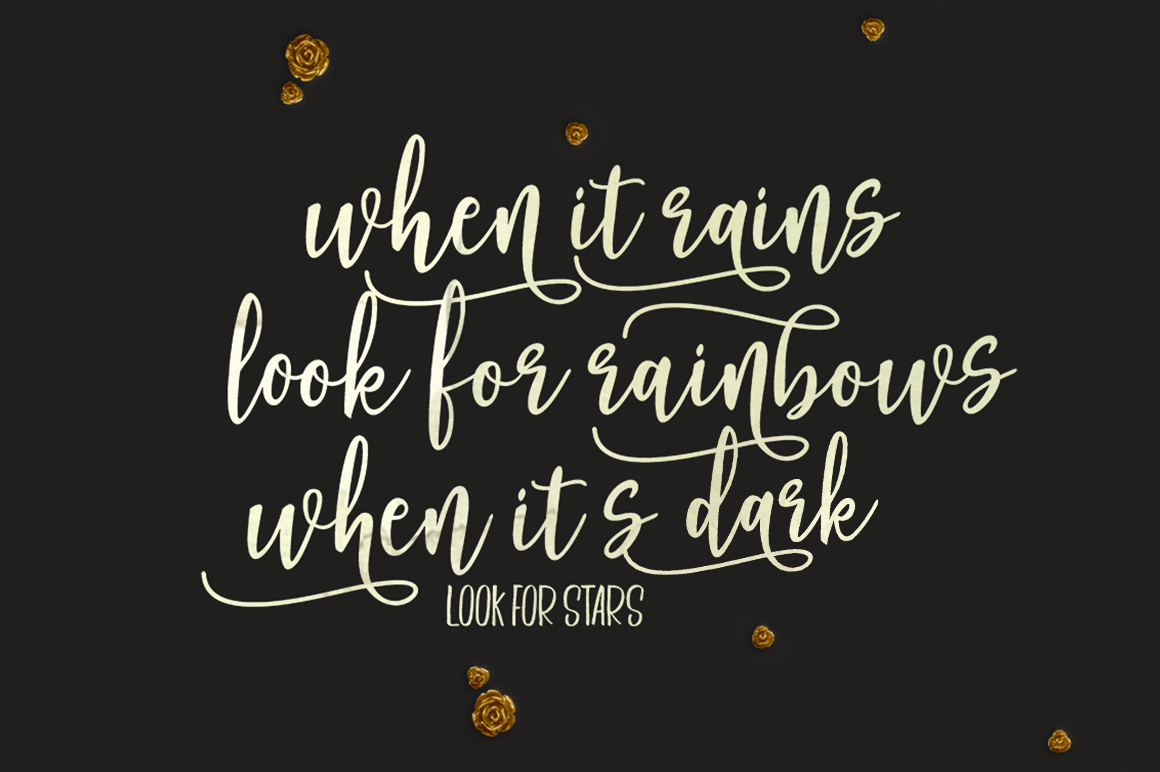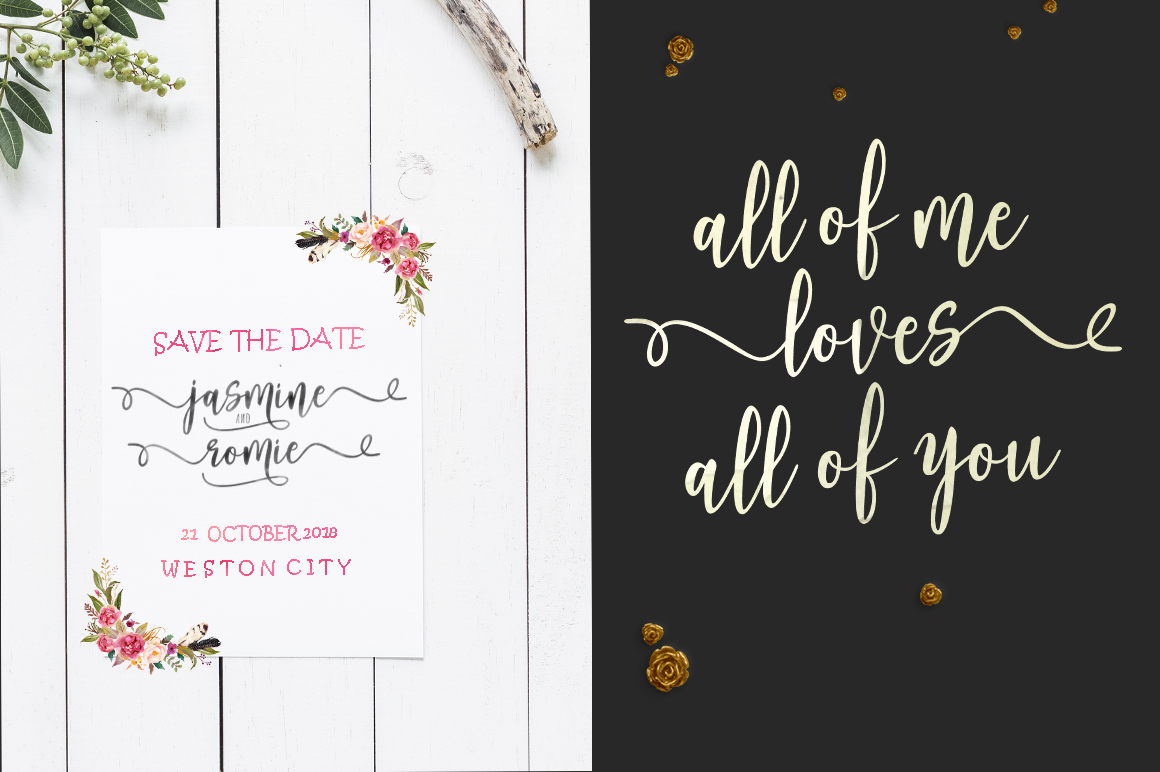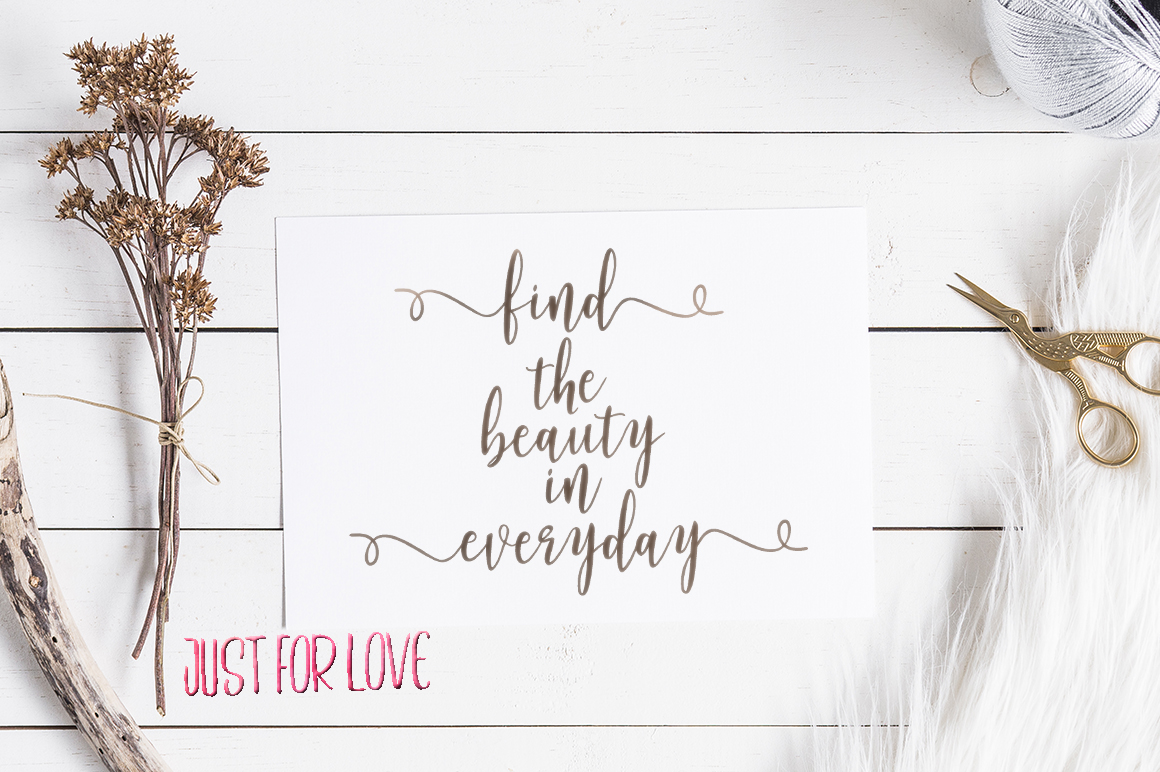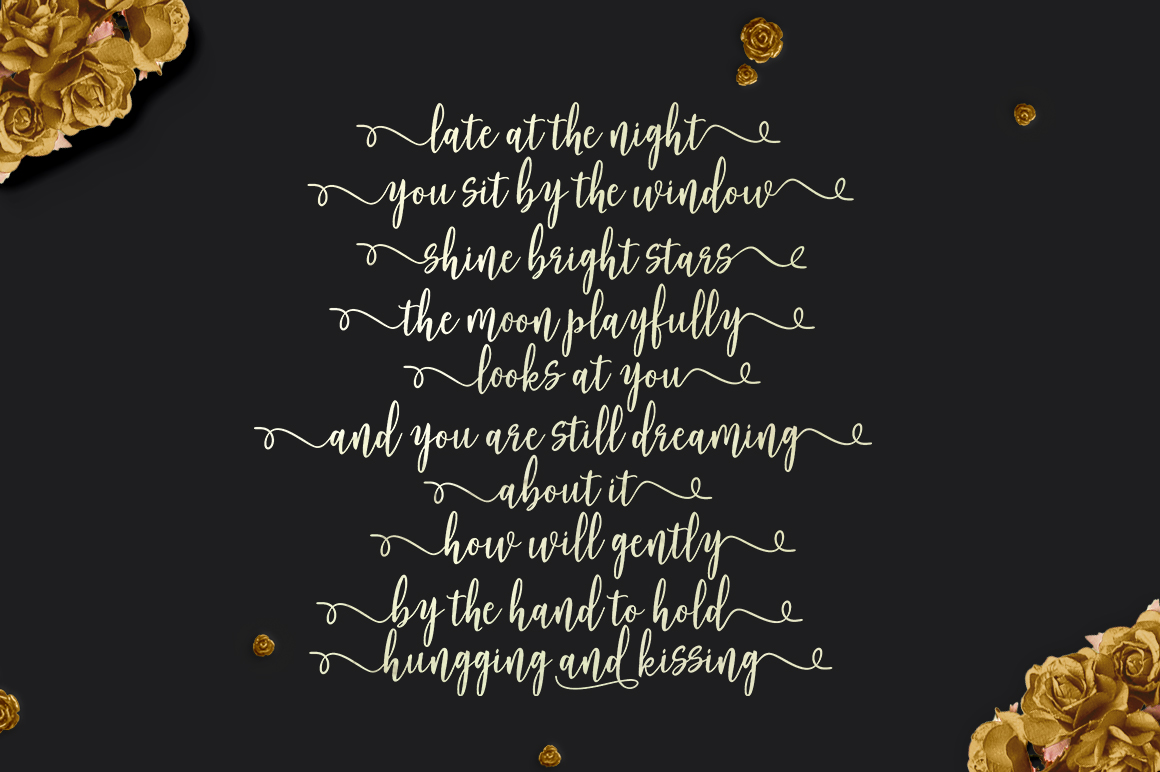
Adheana Font
About Adheana Font
Adheana Script is a stunning hand-brushed typeface created with a brush and ink. It features a bold, irregular baseline.
It’s an ideal font for many different type of projects.